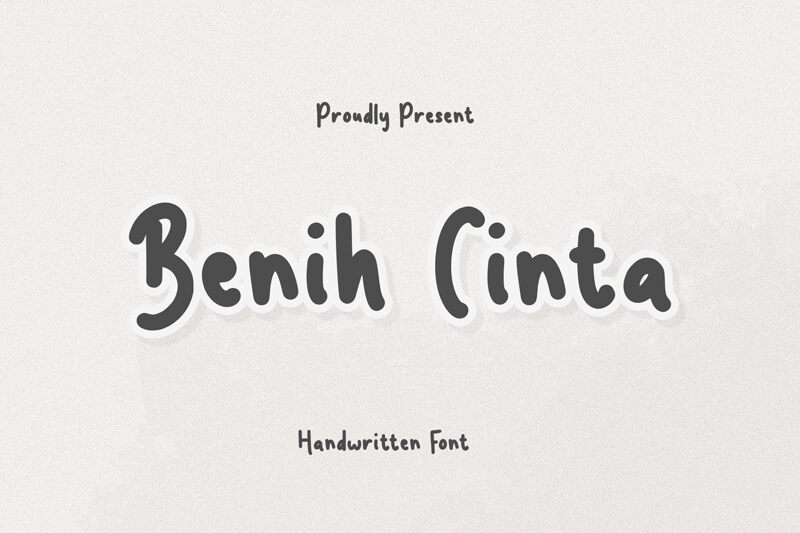
Benih Cinta font has a pleasant and mild personality derived from its soft cursive shapes. This handwritten font by Makashi will add a homely inviting aura to your design projects. Whatever content you want to represent or write with this font will look friendly and approachable to the viewers. This in turn increases engagement and gives an element of comfort to the content.
The letters of this font are very legible, so it can be used for typing body texts as well as large size texts. Use it for posters, invitations, book covers, film covers, music album covers, and many similar things.